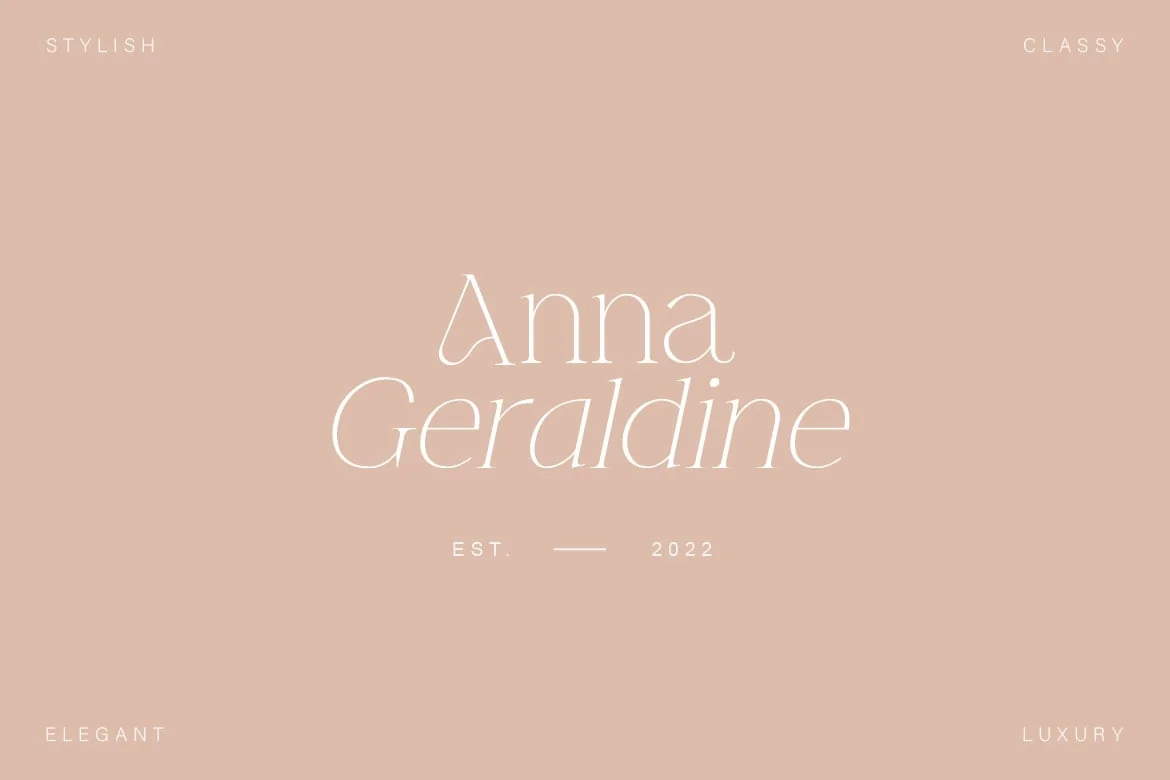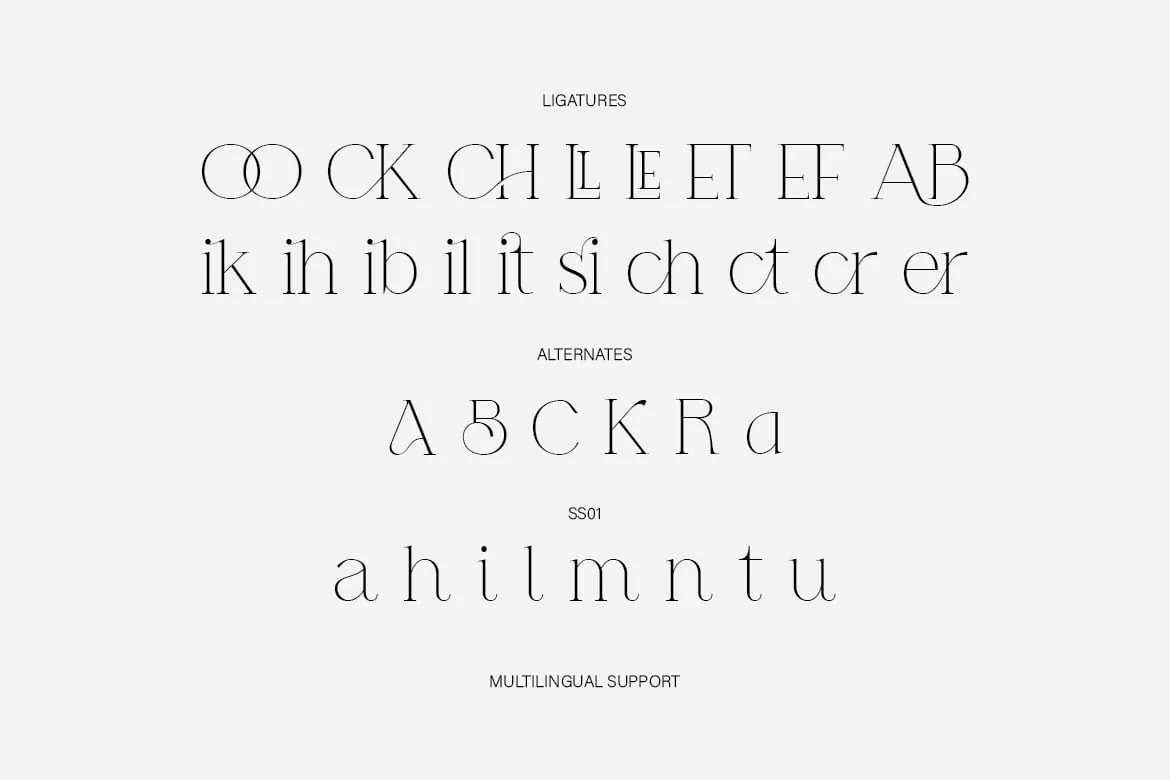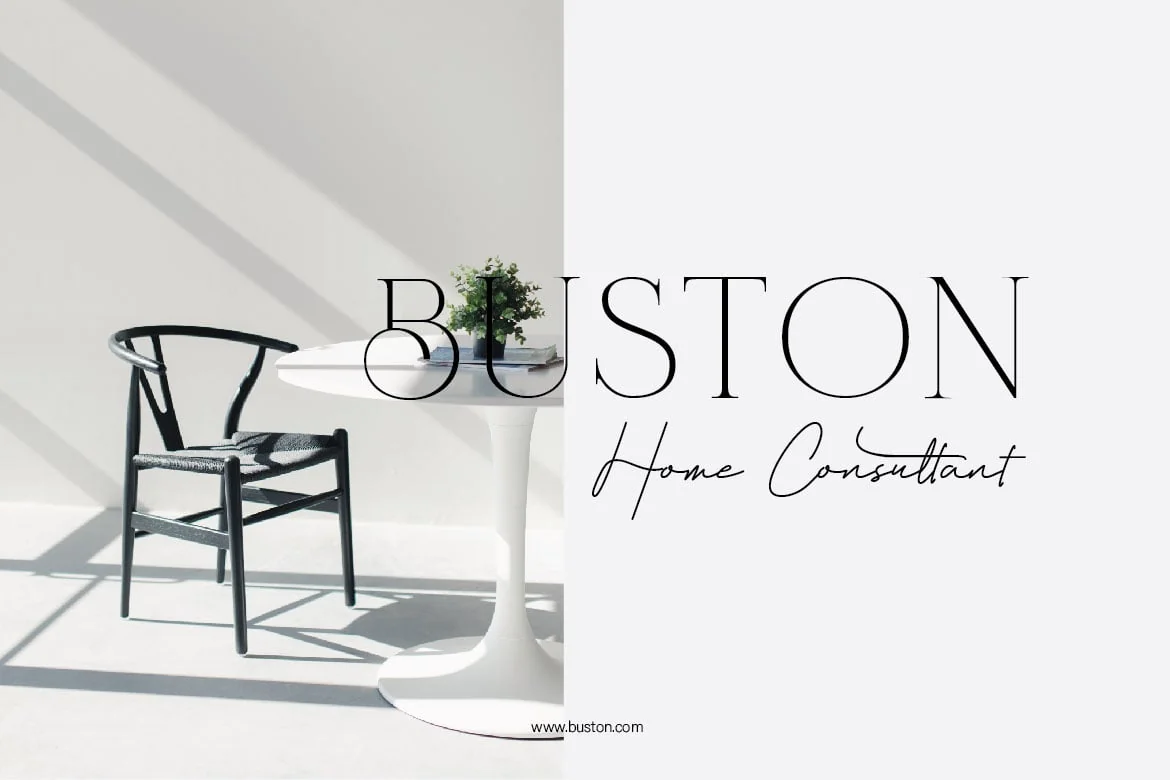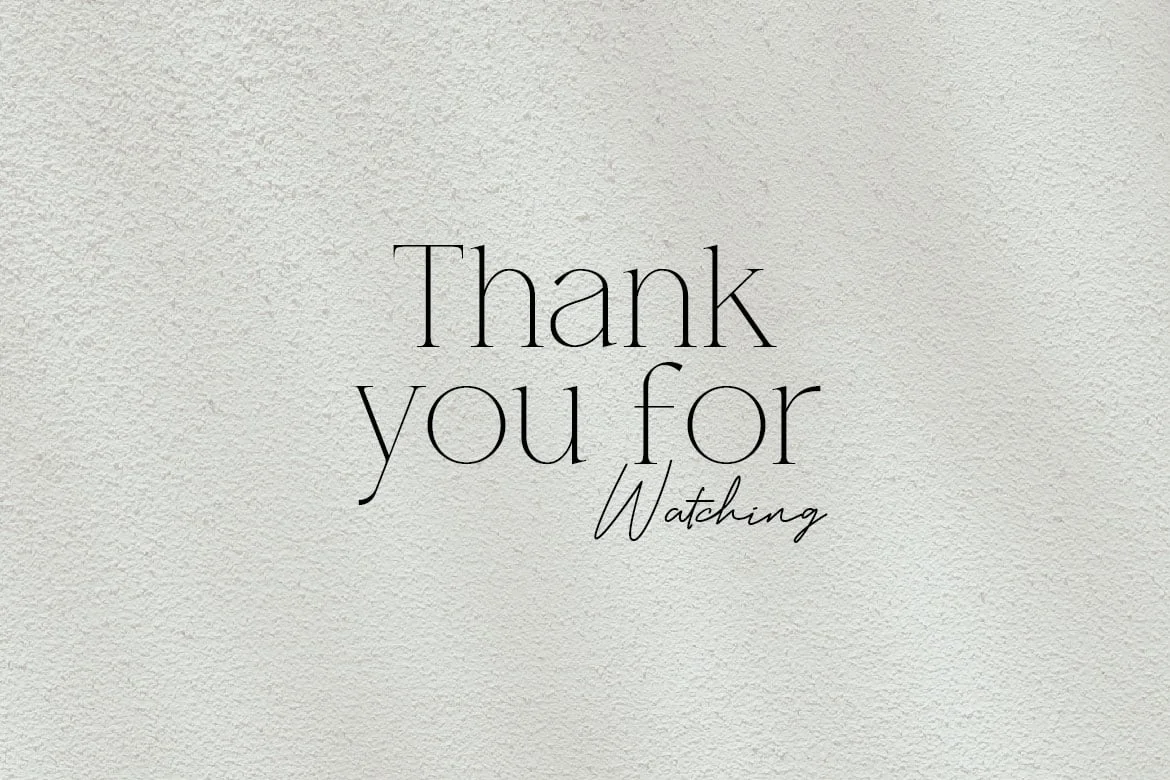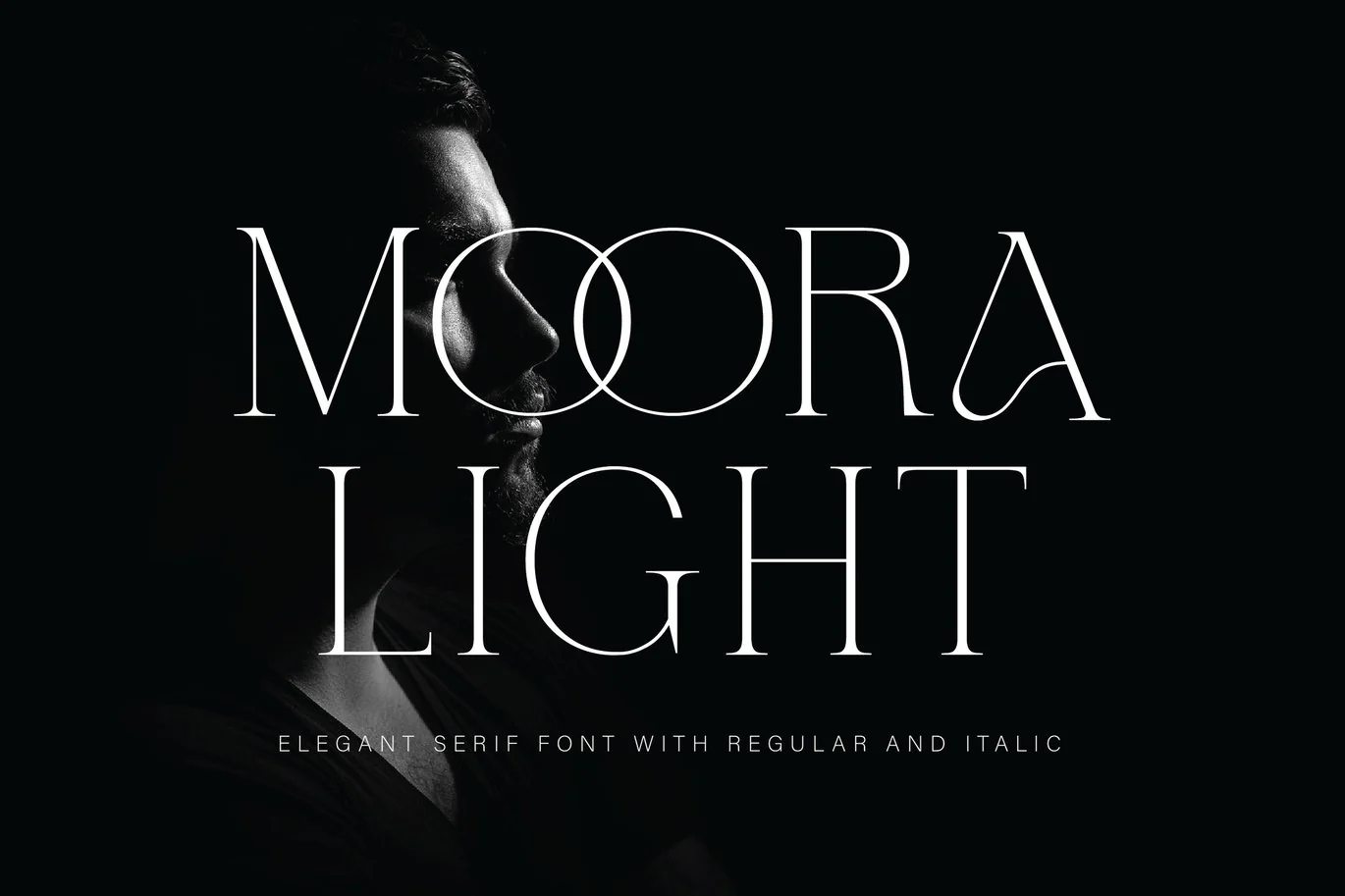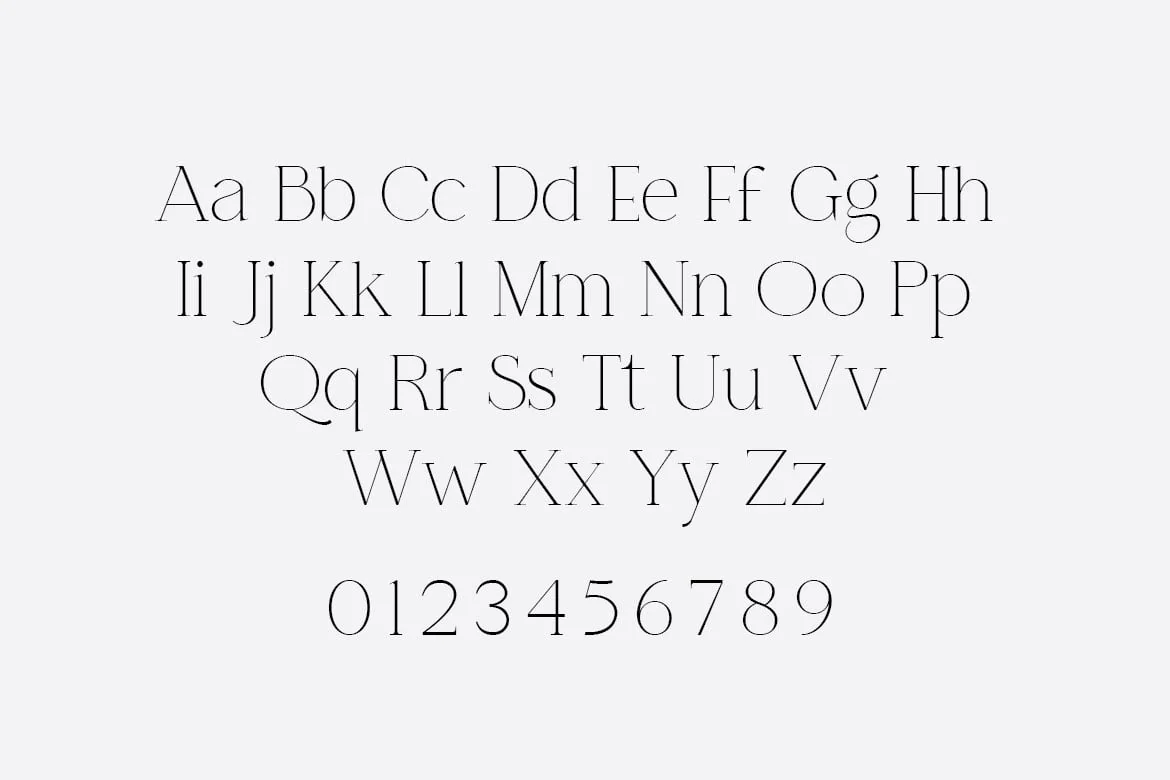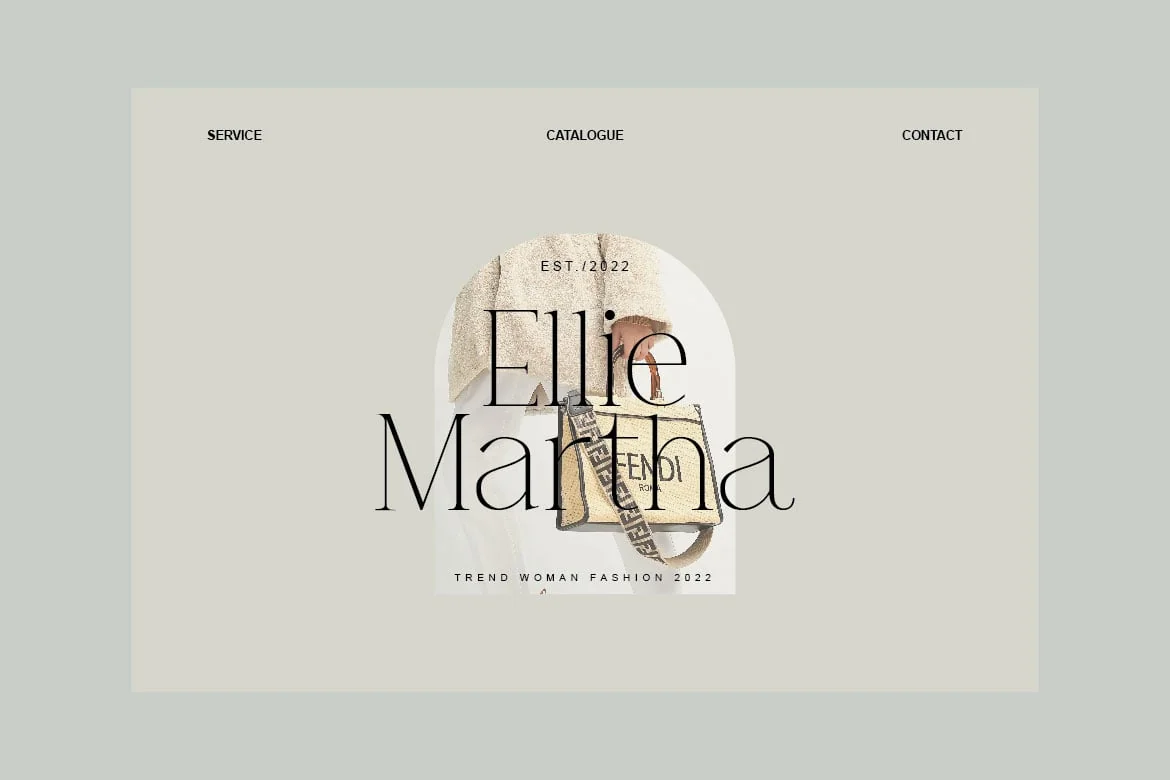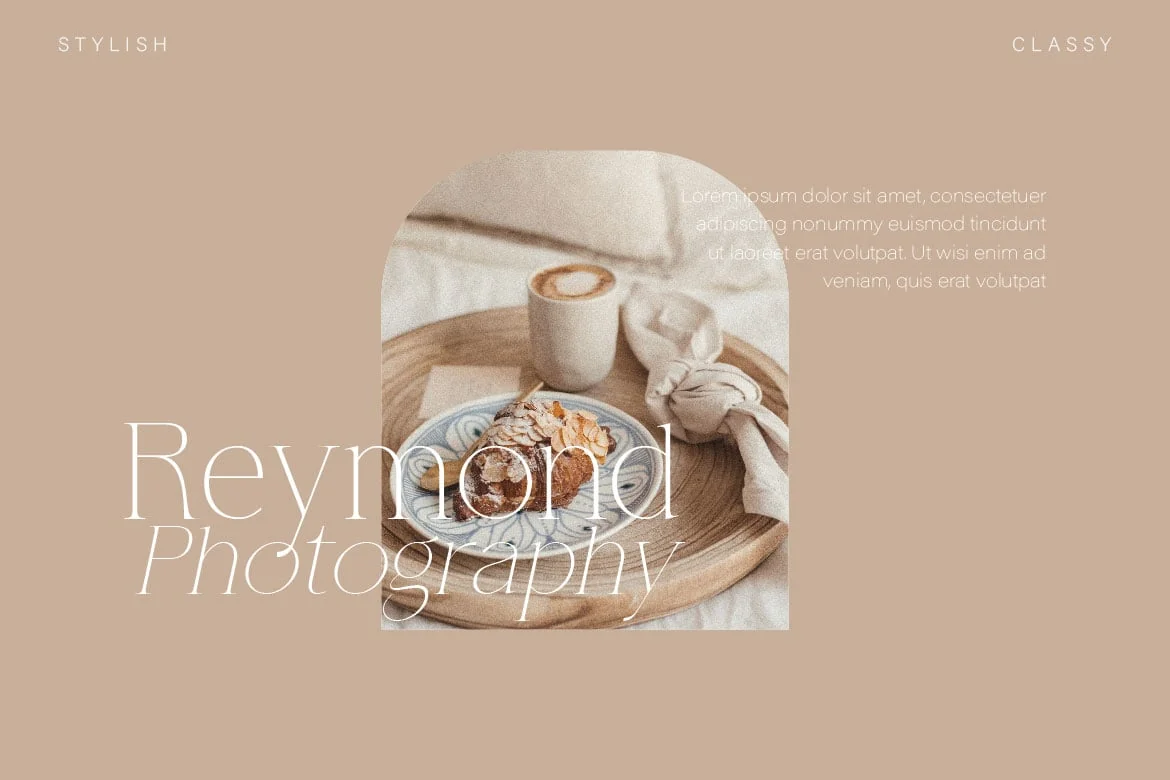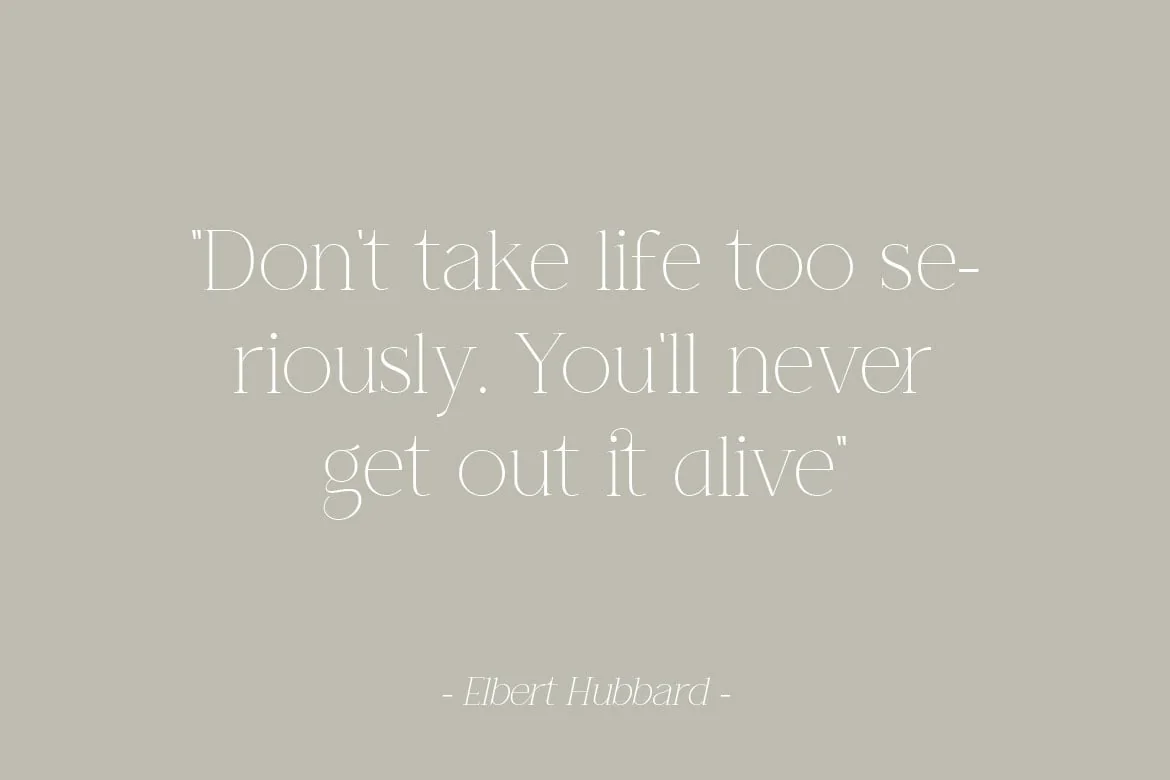
Moora Light Display Serif Luxury Font
Moora Light feels playfully nostalgic and delivers an incredible vintage aesthetic. Use this serif font to add that special retro stylish touch to any design idea you can think of. Moora Light Display Serif Luxury Font